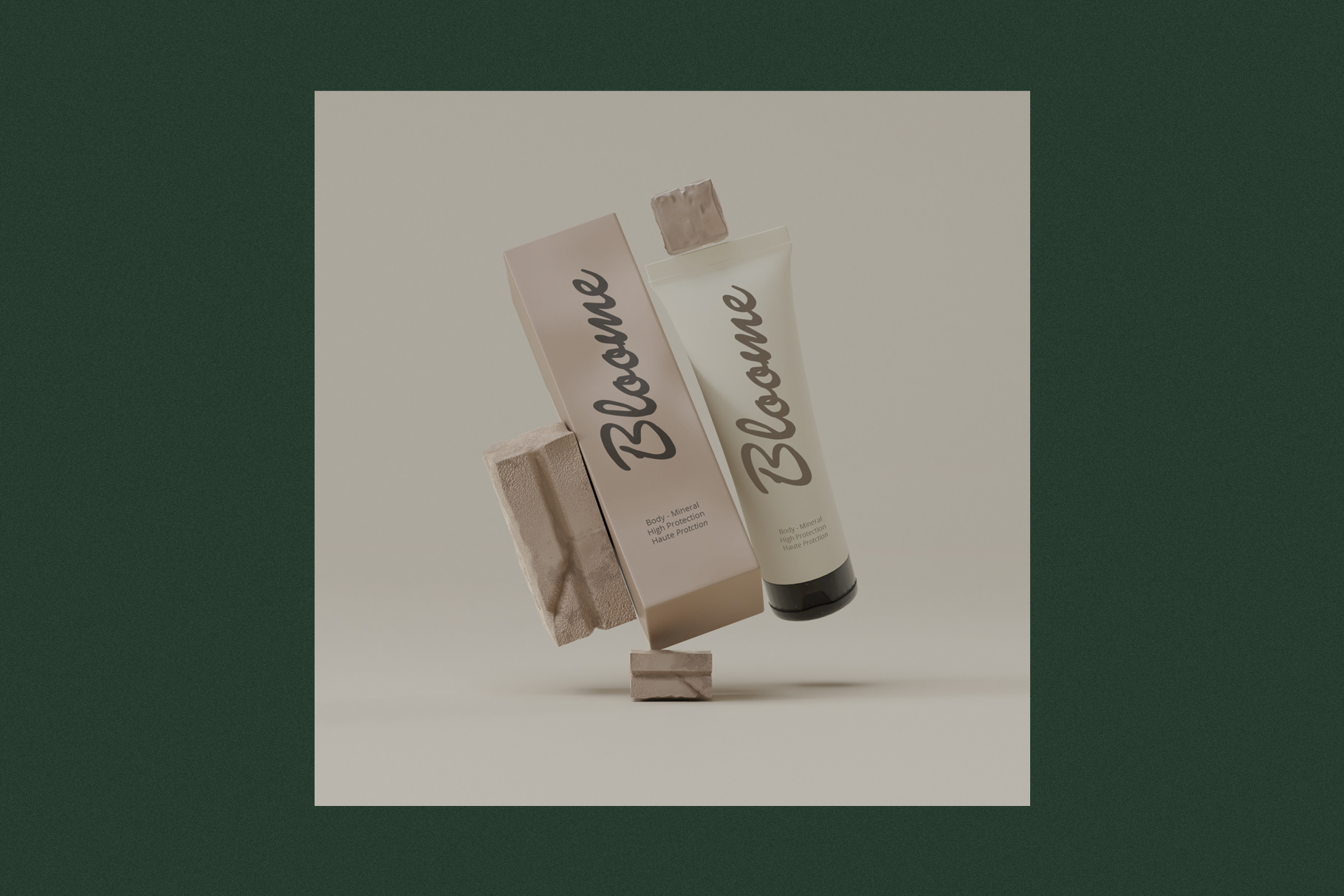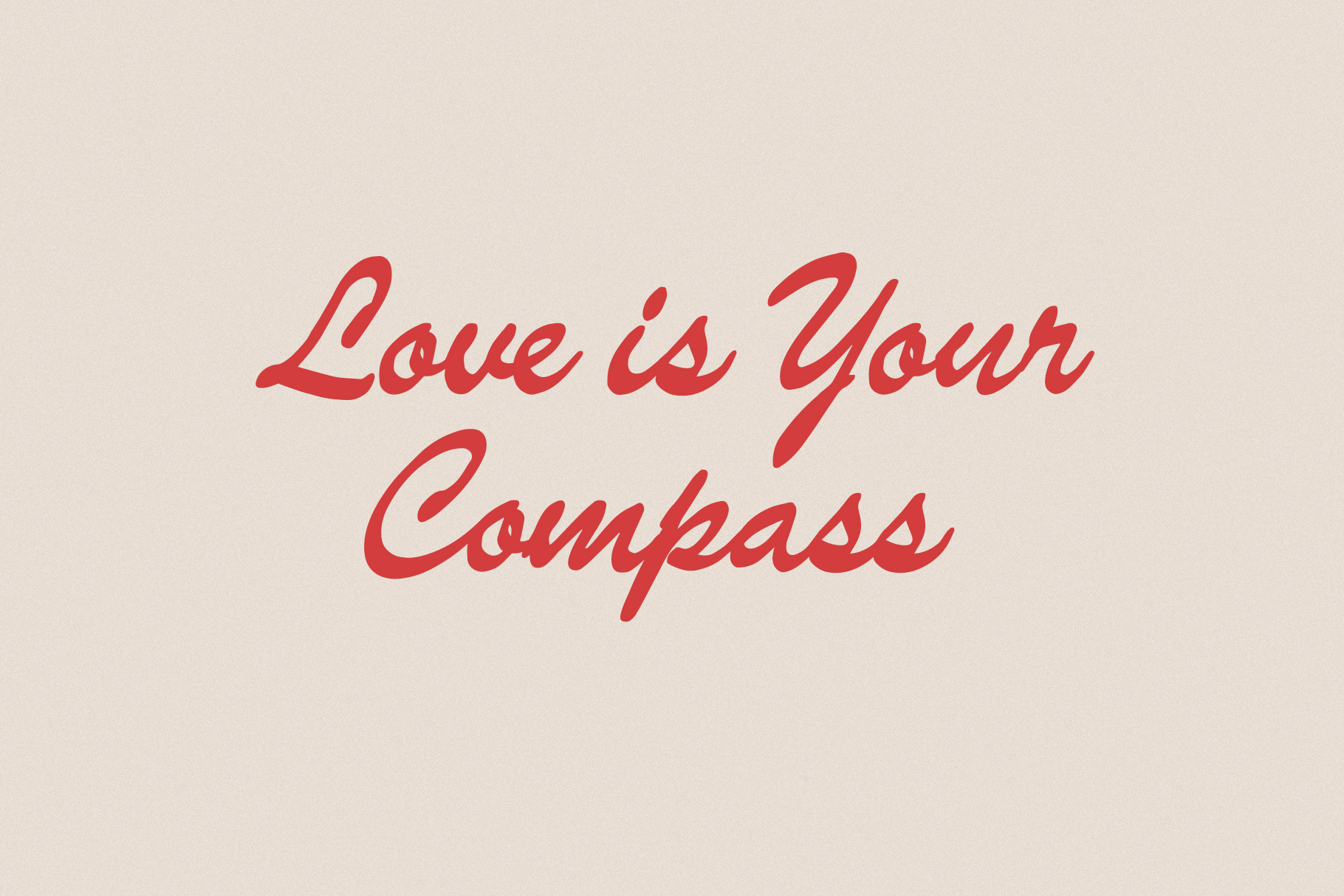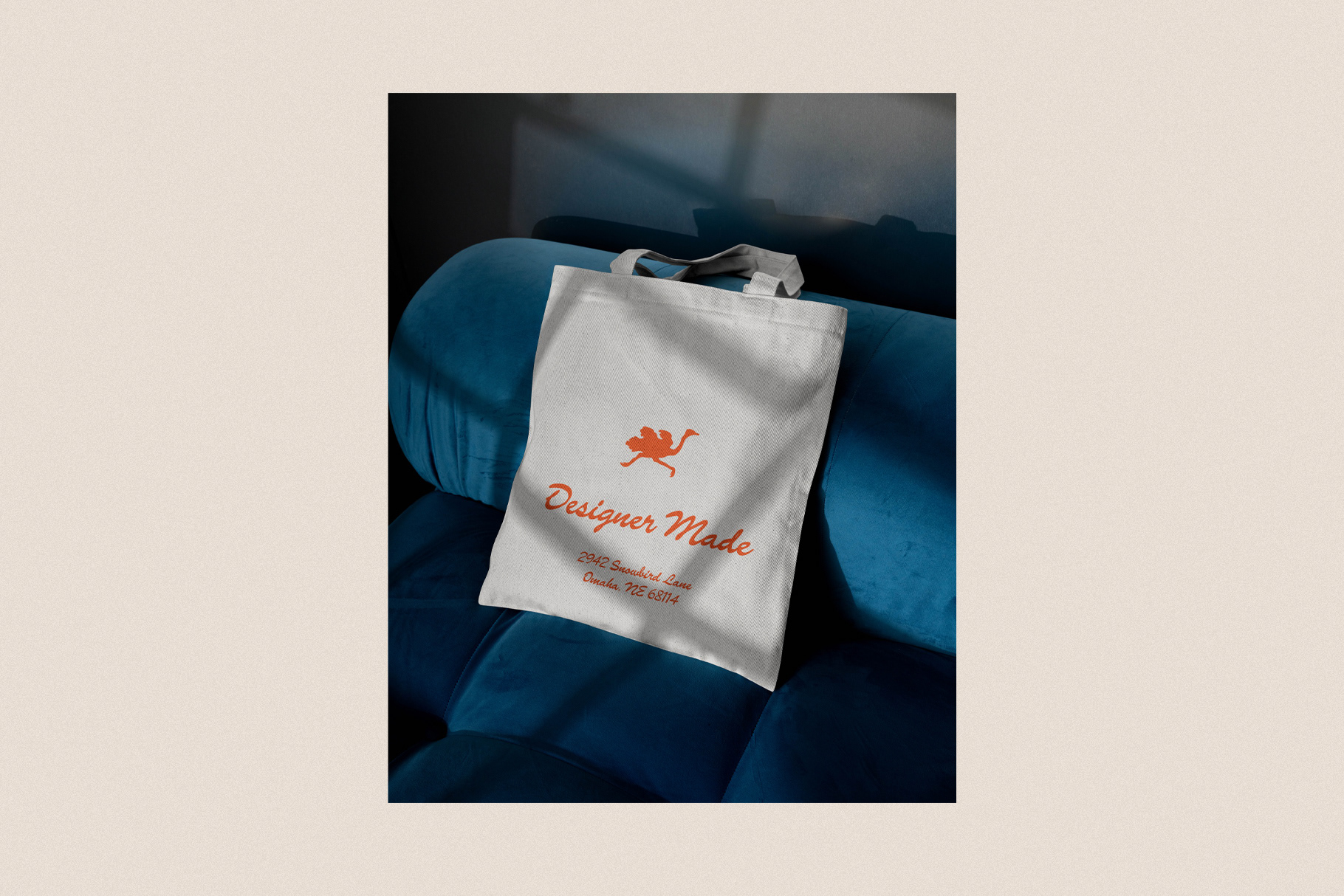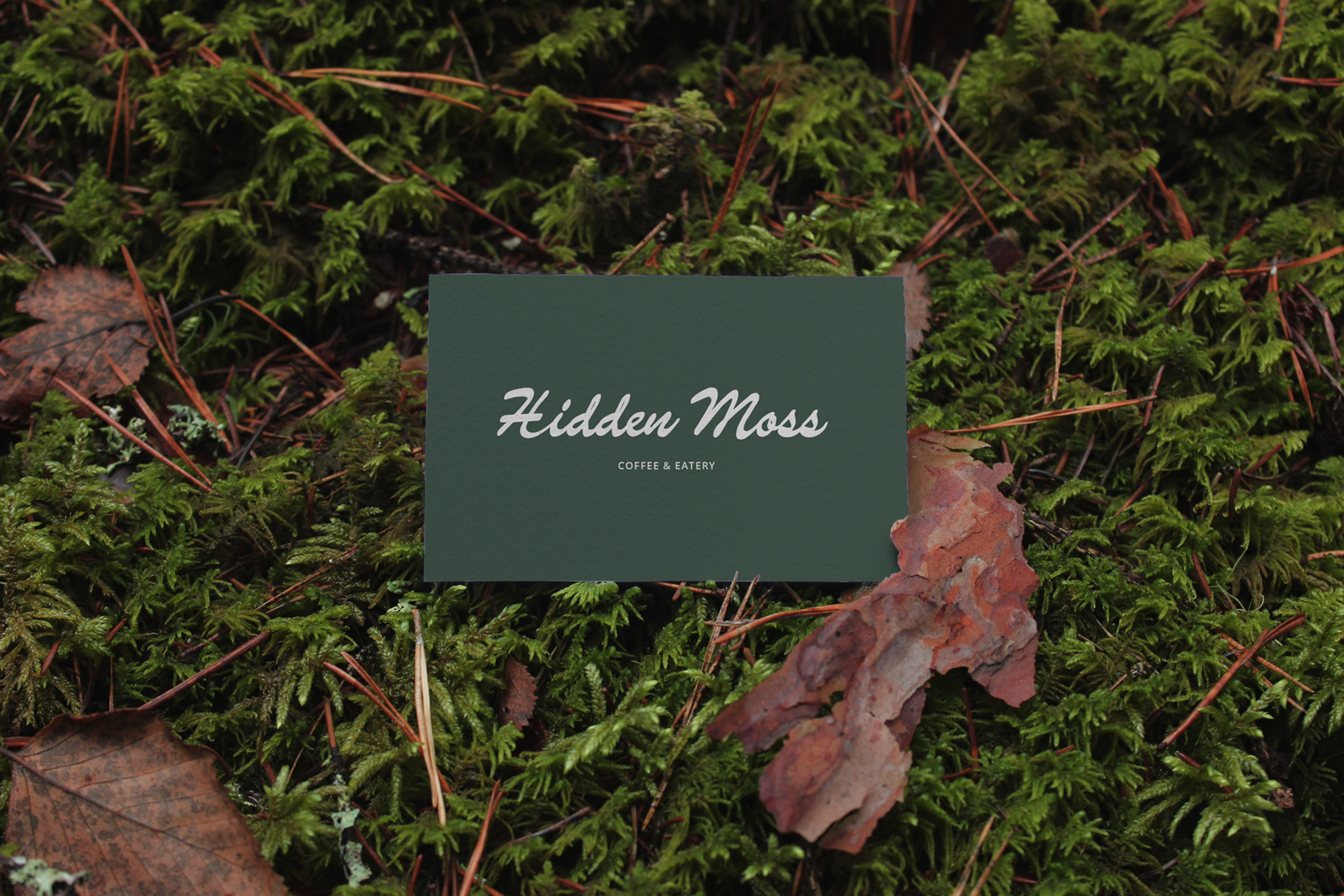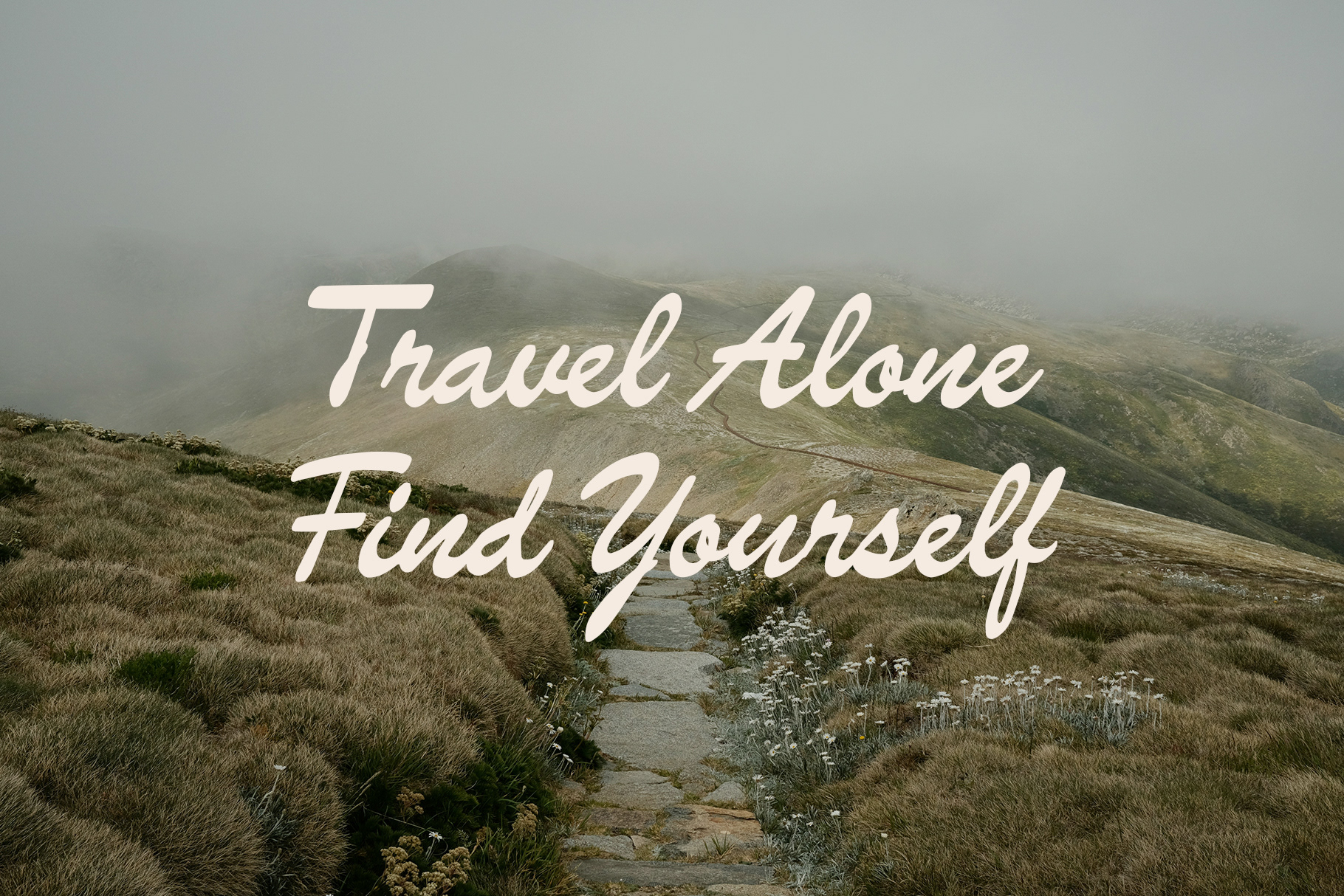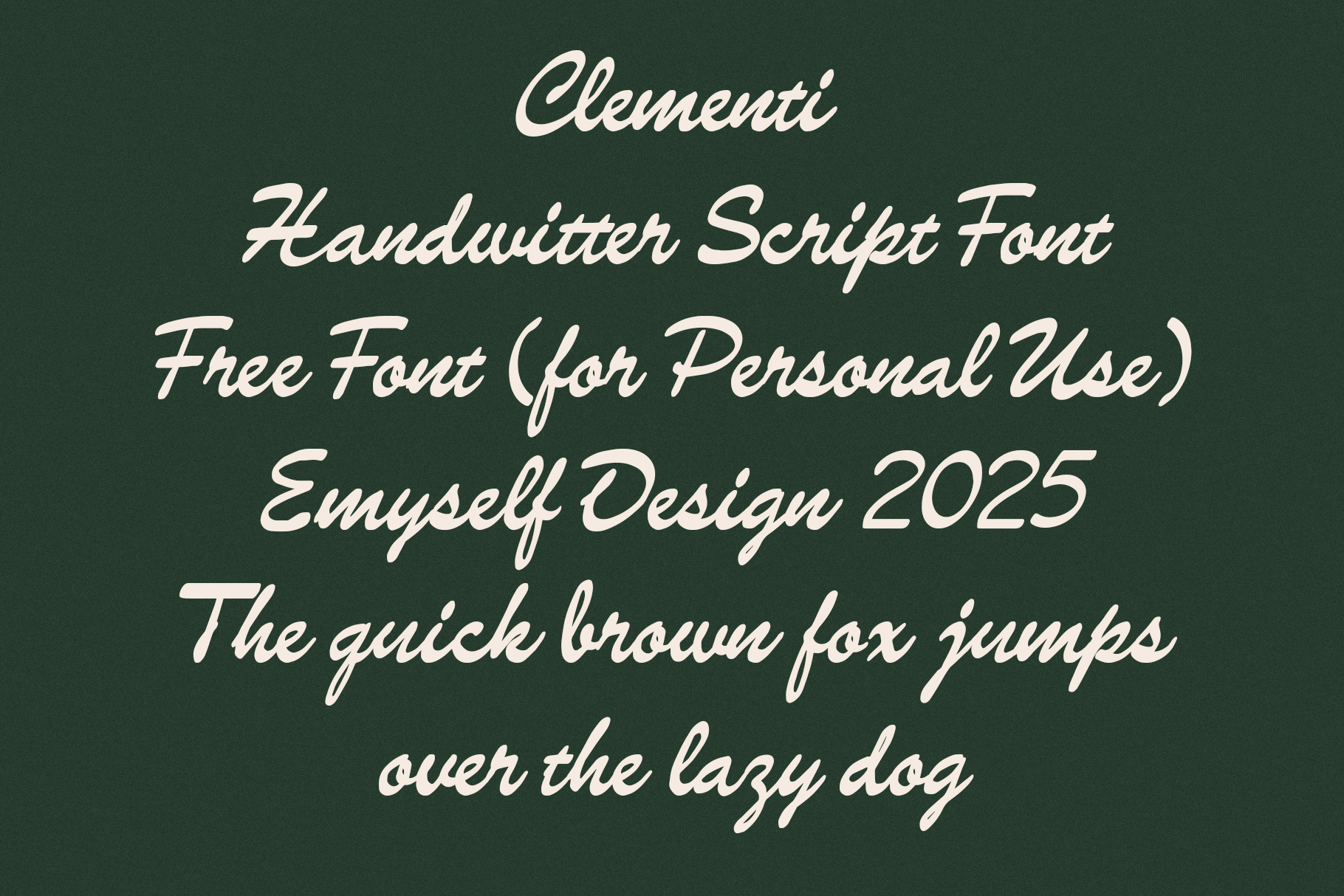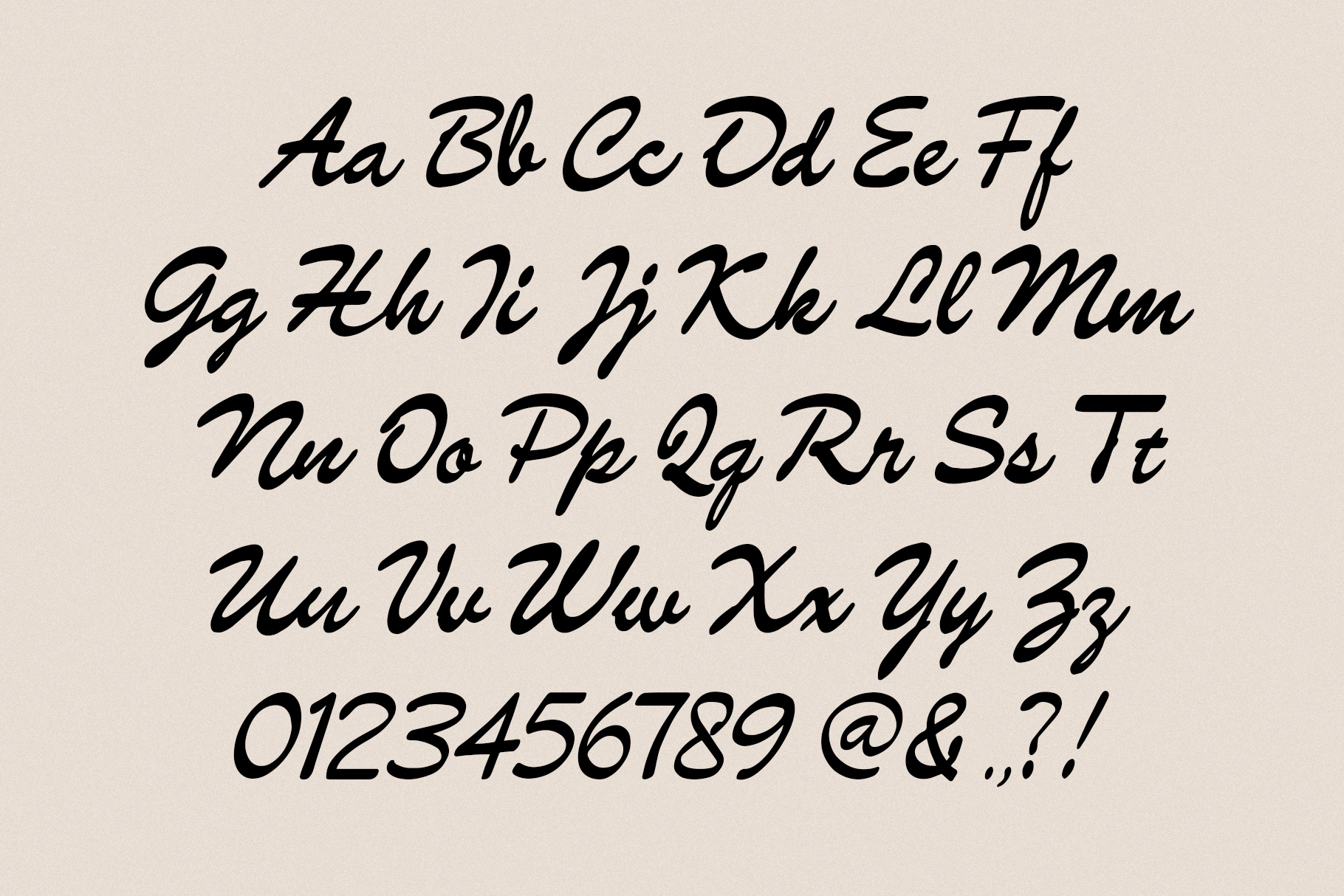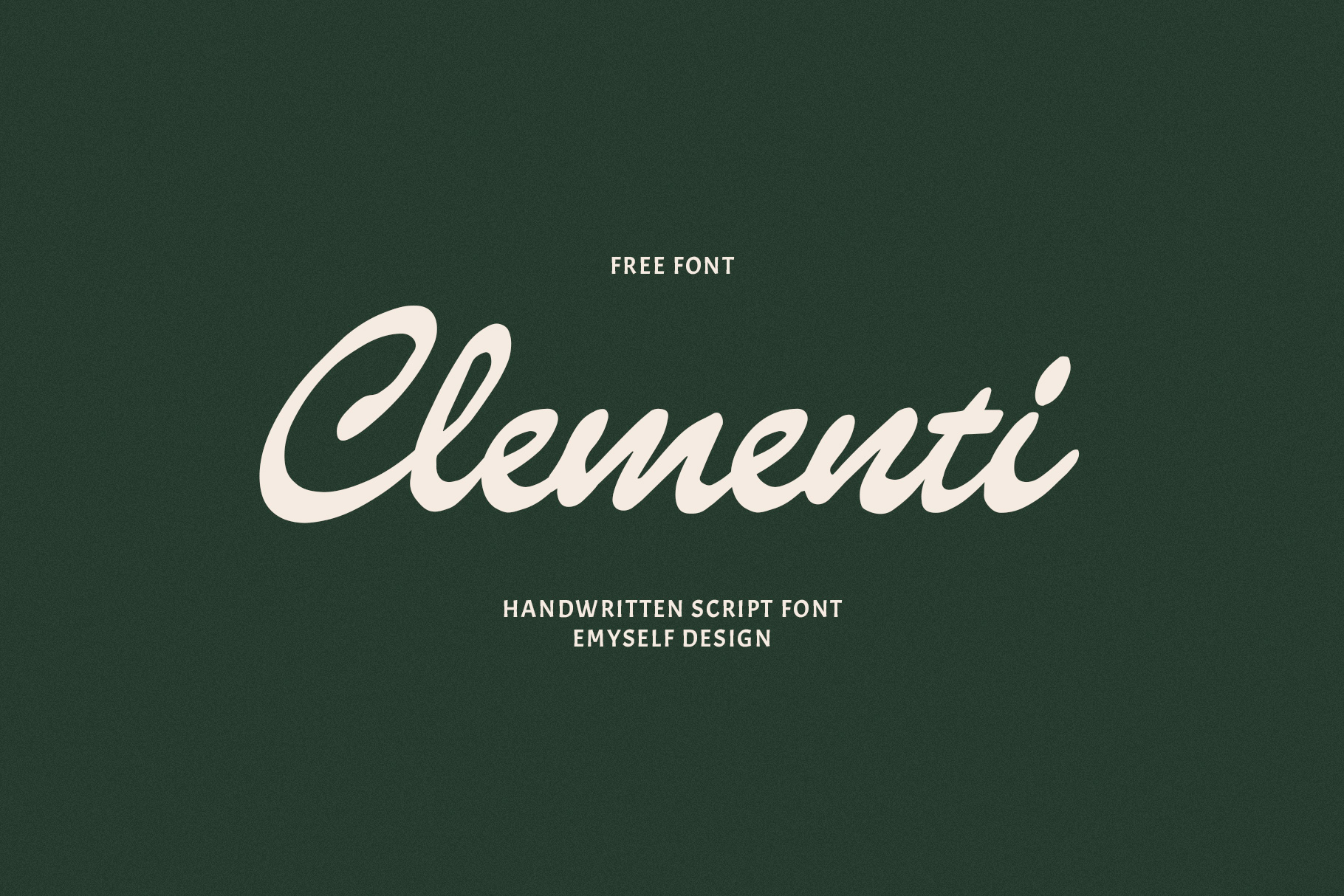
ED Clementi - Free Font
Clementi is a handwritten brush script font with a bold and unique look. This font is ideal for logo design, wedding invitations, branding, typography, web design, social media, and more.